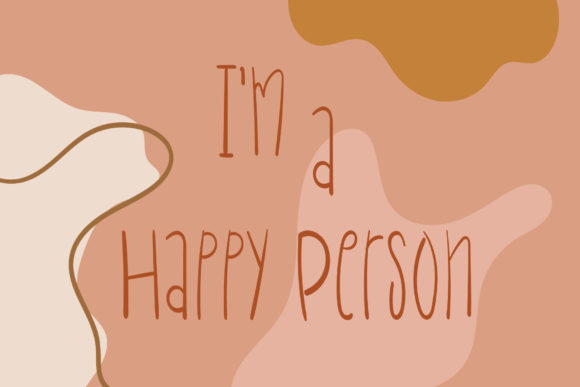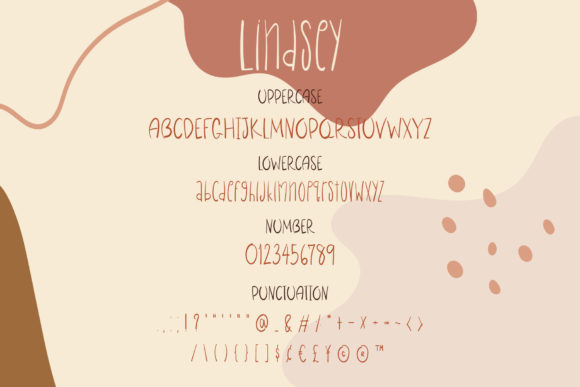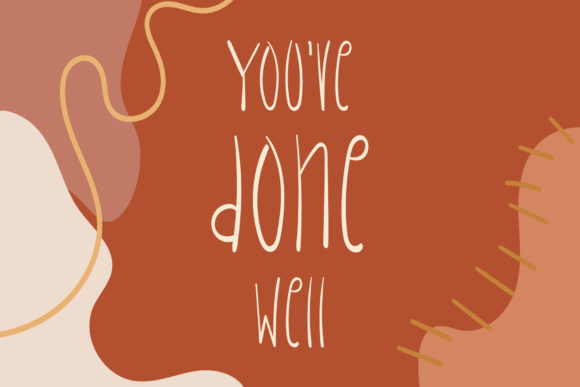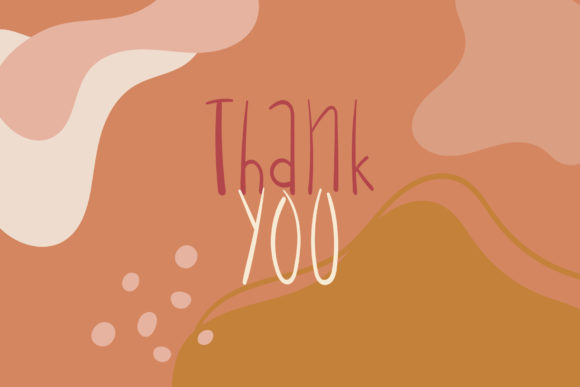
Introduction to Lindsey Font
Lindsey is a thin and tall lettered handwritten font.
Delicate and unique, this font will look adept on a wide range of designs .